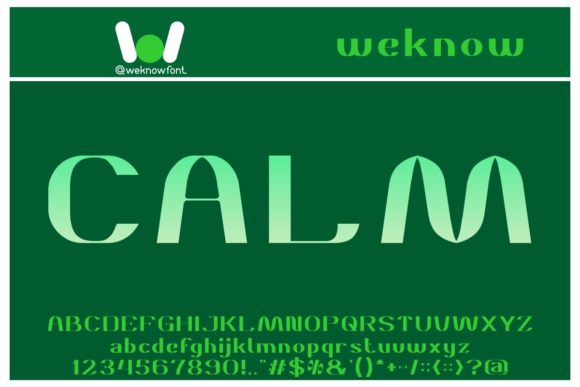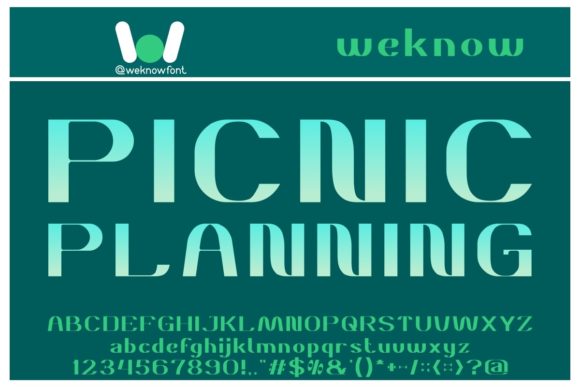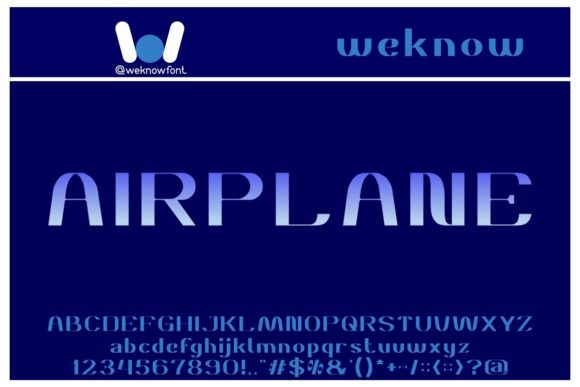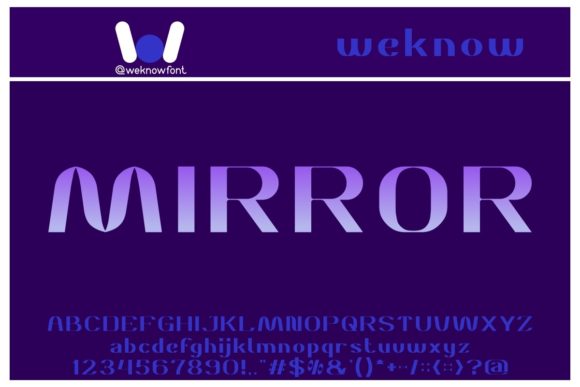
An Honest Review of Daniel Font
- ✨ Fancy and Cool: Daniel Font is a stunning display font that adds a touch of sophistication to any design.
- ✅ Versatile: Its unique style makes it perfect for logos, headlines, corporate identity, brand identity, apparel, posters, music, movies, games, magazines, books, comics, cartoons, YouTube, Instagram, websites, and more.
- 💡 Attention-grabbing: The font’s distinctive features ensure it stands out, making it ideal for designs that need to capture attention.
While Daniel Font is an excellent choice, there are a few things to consider:
- ⚠️ Legibility at Small Sizes: Like many display fonts, Daniel may not be the best choice for body text or small font sizes, as some details might get lost.
- 🤔 Pairing with Other Fonts: Due to its bold style, it may require careful pairing with other fonts to maintain visual harmony.
The Backstory of Daniel Font
Daniel Font was created with the goal of providing designers with a unique, versatile typeface that could elevate their projects. Inspired by modern design trends and classic typography, Daniel Font blends elegance with a bold statement. While the actual designer and exact inspiration might be fictional, the font’s impact on design communities is very real.
Q: Is Daniel Font suitable for body text?
A: Due to its design as a display font, Daniel might not be the best choice for extensive body text. It’s better suited for headlines and short text passages.